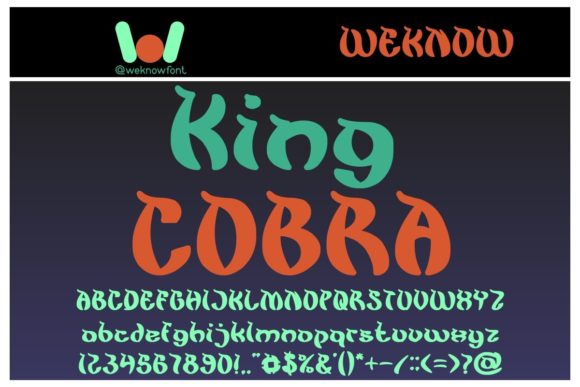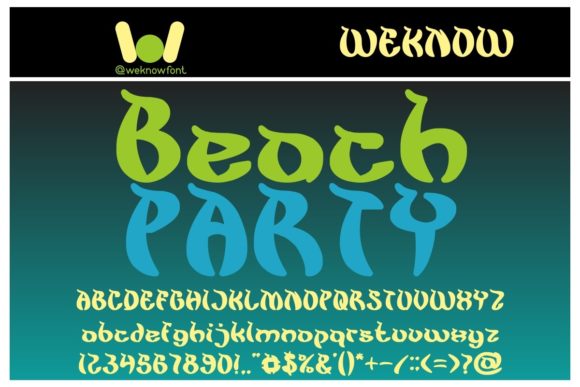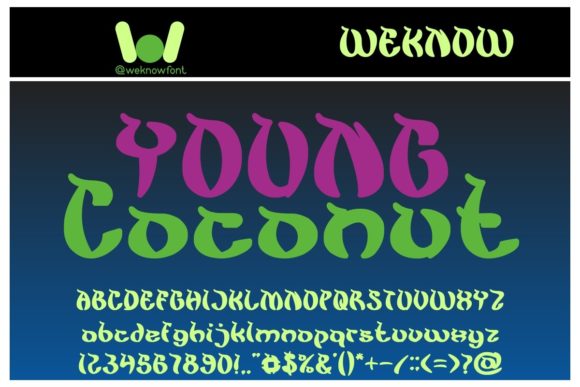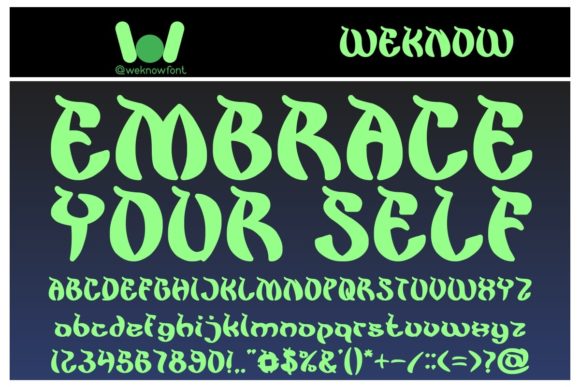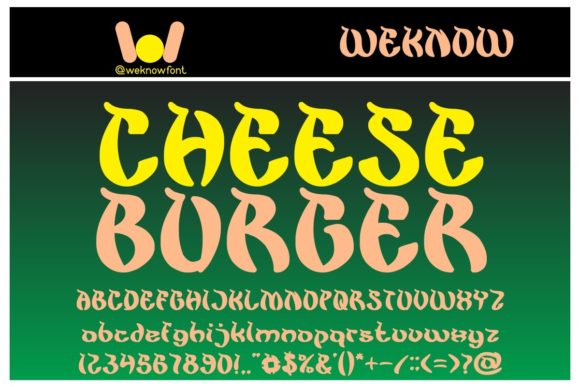
King Cobra
King Cobra: A Fancy and Bold Slab Serif Font
King Cobra is a distinctive slab serif font that combines fanciness with boldness. This eye-catching typeface is designed to make a strong impact, perfect for daring projects that require impressive typography.
Key Features of King Cobra
• Fancy Design: Offers elegant and decorative letterforms that add sophistication to designs.
• Bold Appearance: Features strong, impactful characters that command attention.
• Slab Serif Structure: Incorporates the characteristic thick, rectangular serifs typical of slab serif fonts.
• Versatile Application: Suitable for a wide range of projects, from storybook covers to social media posts.
• Eye-Catching Details: Unique characteristics that make designs stand out with a daring flair.
Ideal Uses for King Cobra
King Cobra’s unique characteristics make it particularly well-suited for:
• Storybook covers
• Magazine layouts and headlines
• Cartoon and comic book titles
• Social media posts and graphics
• Branding projects requiring a bold presence
• Poster and advertisement designs
When incorporating King Cobra into your designs, consider these tips:
• Use for headlines or short blocks of text to maximize its fancy and bold impact
• Experiment with different sizes to highlight the font’s unique details
• Take advantage of its daring style for projects that need to make a strong impression
King Cobra is an excellent choice for designers looking to add a fancy and bold slab serif font to their typographic toolkit. Its ability to elevate the look of various creative projects makes it stand out in the world of typography. Whether you’re working on logo designs for daring brands, creating layouts for storybooks, or developing content that requires impressive typography, King Cobra offers the perfect blend of fanciness and boldness.
Furthermore, King Cobra’s versatility allows it to shine in various contexts. From vintage-inspired designs with a modern twist to more playful layouts that need a touch of sophistication, this font can elevate your projects. Its fancy yet bold style works particularly well in designs that require a striking and impactful mood.
In conclusion, King Cobra is a font that truly lives up to its name, offering a regal and powerful presence in any design. Its ability to work well in both elegant, sophisticated projects and more daring layouts showcases its flexibility. For those looking to add a touch of fancy boldness to their work, King Cobra can even enhance themed creations with its unique, impressive style. Add it confidently to your projects, and watch how it elevates the look of your creations!